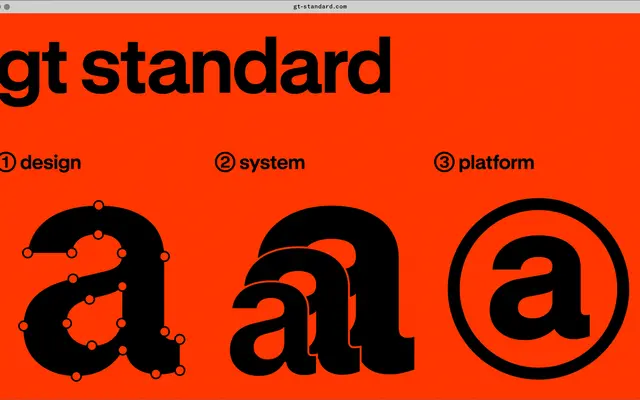
GT Standard
Grilli's 336-style Swiss-style system, built as a contemporary response to modernist standardisation.
A 336-style Swiss sans by Grilli Type, released in 2025. Grilli pitch it as a contemporary response to the modernist pursuit of standardisation, rooted in Swiss Style and built for clarity, adaptability and precision. The family spans six widths from Compressed to Expanded plus a Mono family in three widths, each at S, M and L optical sizes with Obliques and seven weights, suited to large-scale design systems.
Grilli describe it as a contemporary response to the modernist pursuit of standardisation, rooted in Swiss Style and built for clarity, adaptability and precision across every scale and medium.